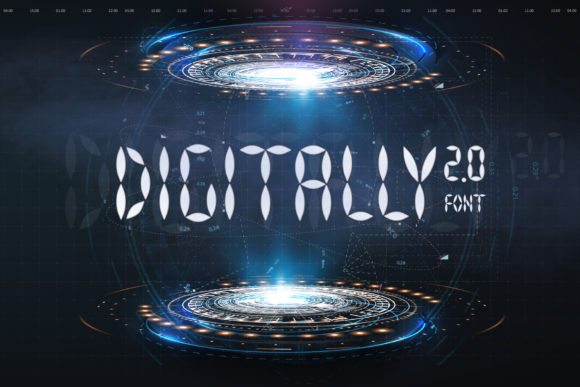
Prepare yourself to be mesmerized by Digitally, the captivating display font that will transform your creative visions into digital masterpieces. Inspired by the sleek aesthetics of a digital clock, Digitally's unique character set exudes a futuristic charm that is sure to leave a lasting impression on your audience.
With Digitally, you'll effortlessly craft designs that radiate innovation and modernity. Whether you're working on branding projects, product packaging, or mesmerizing invitations, Digitally's versatility will elevate your designs to new heights.
Imagine your wedding text adorned with Digitally's elegant, pixelated charm. Each letter, a perfect blend of sharp angles and smooth curves, will weave an enchanting narrative that captures the essence of your special day. Your guests will be captivated by the unique visual appeal of Digitally, leaving them with a lasting memory of your celebration.
Unleash your creativity and explore the endless possibilities that Digitally presents. Its crisp, clean lines and pixelated textures will add a touch of intrigue to your quotes, t-shirts, labels, posters, and logos. With Digitally, your designs will transcend the ordinary, leaving a lasting impact on your audience.